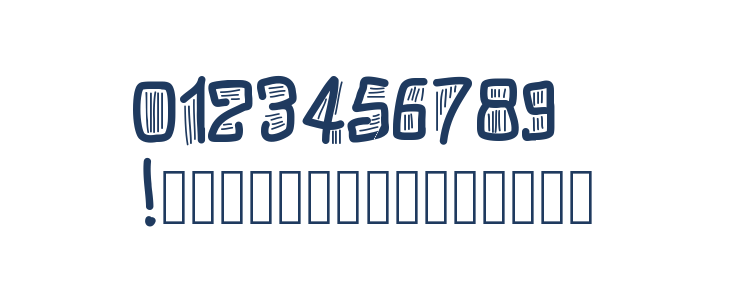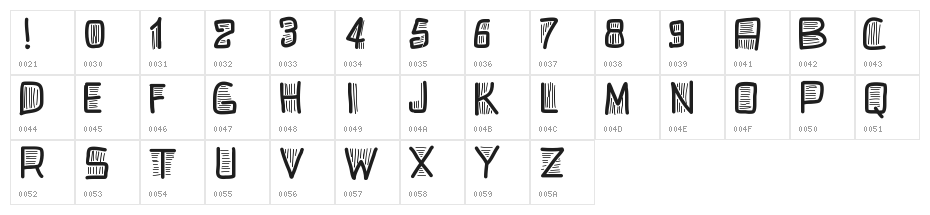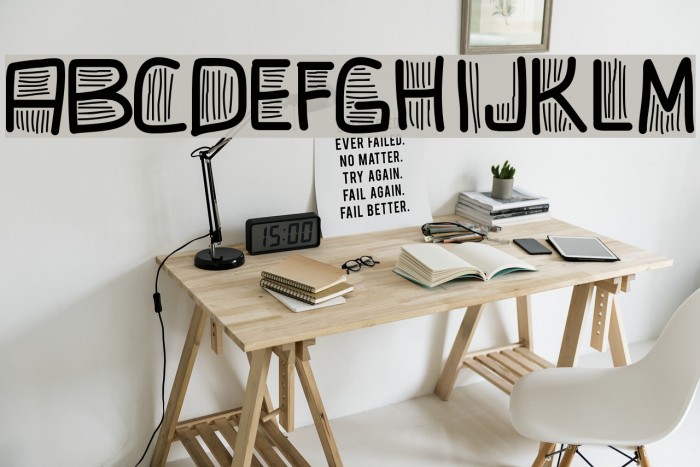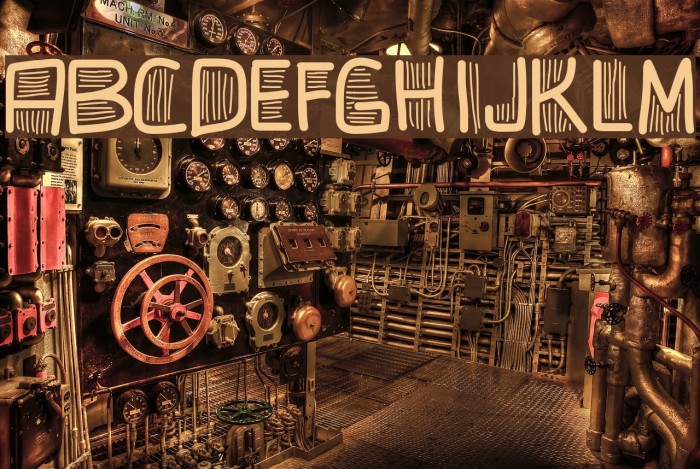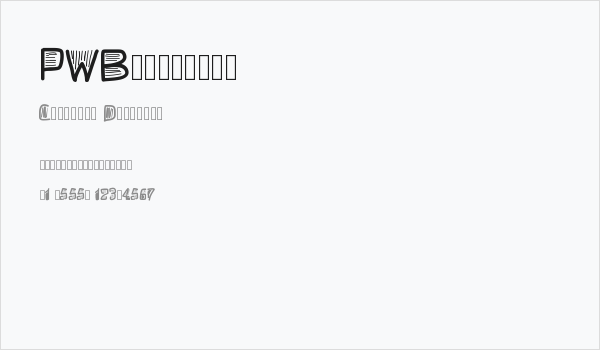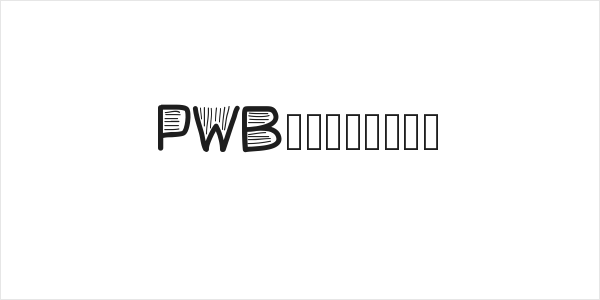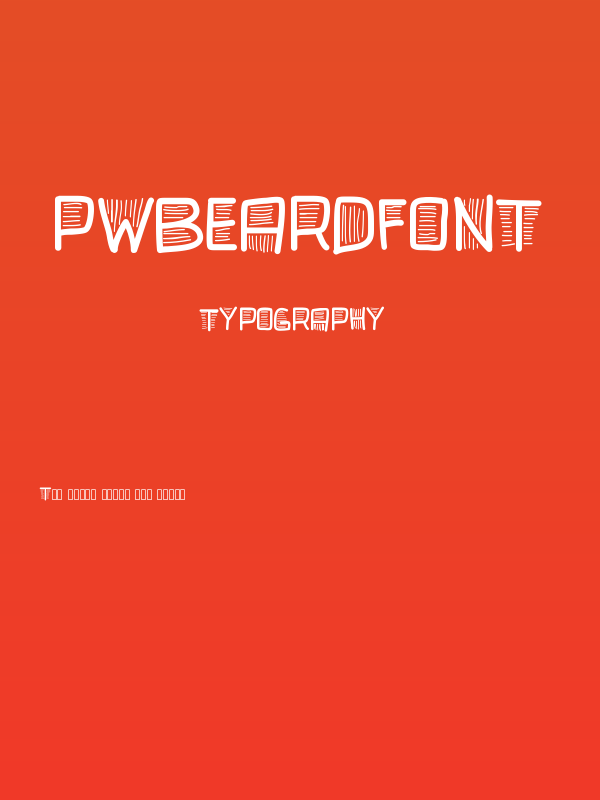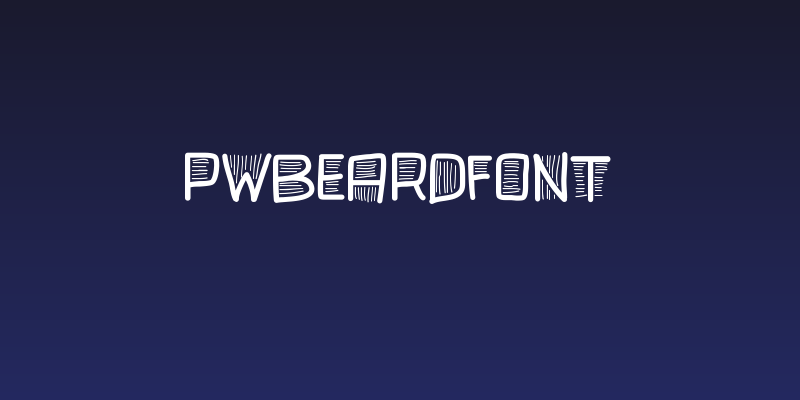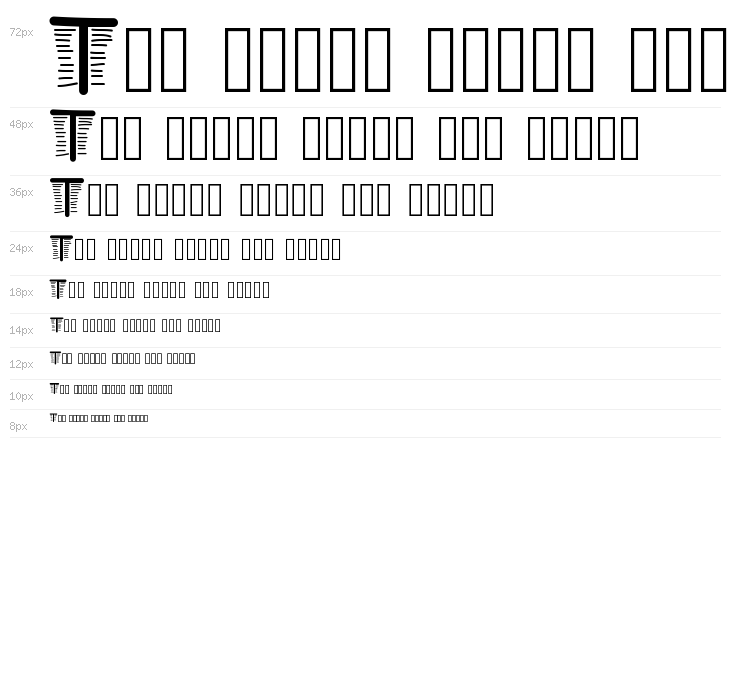
PWBeardfont Font
PWBeardfont Description
This font features a bold, playful design with a hand-drawn aesthetic. The uppercase letters are characterized by thick strokes and irregular line patterns that give a dynamic and energetic feel. The numbers follow a similar style, maintaining consistency across the character set. The font's unique appearance makes it stand out, with each character exhibiting a slightly different pattern, adding to its charm. The overall design is reminiscent of a comic or cartoon style, making it ideal for creative and informal applications.
| Overall Style | Playful, Comic |
| Proposed Projects | Ideal for comic books, children's books, playful branding, posters, and creative projects. |